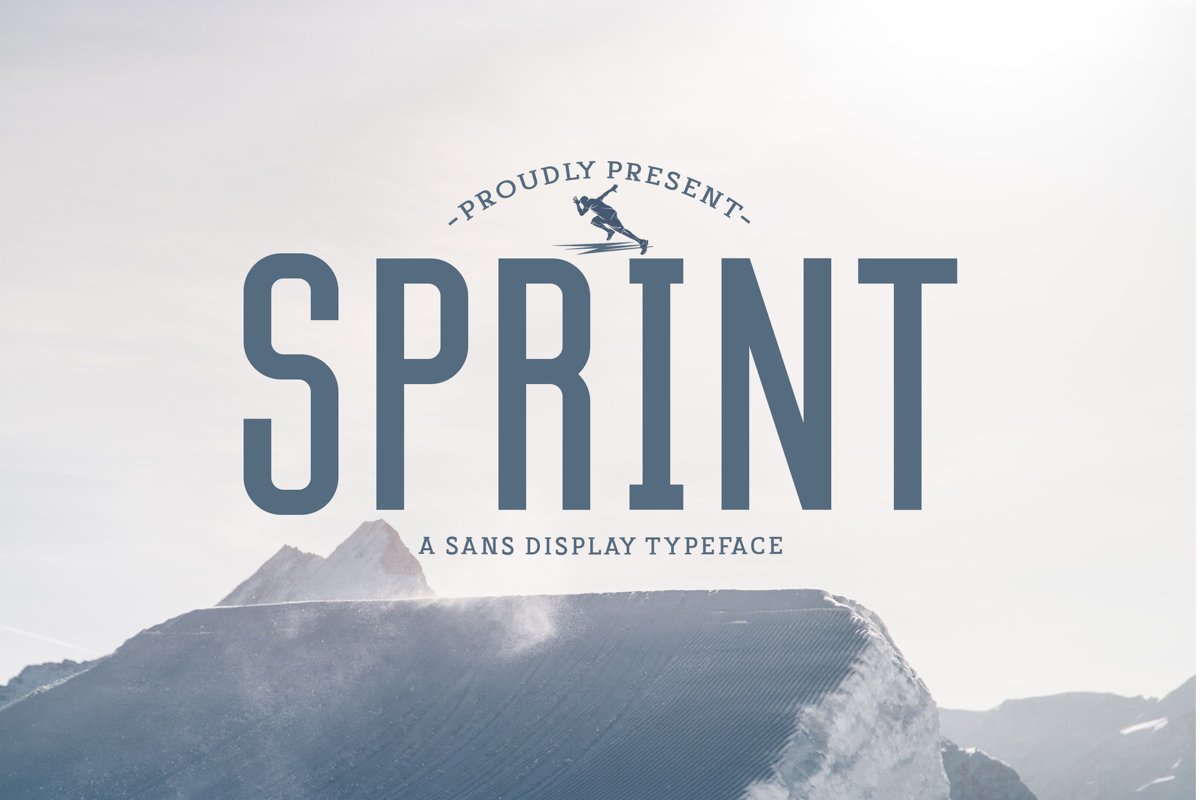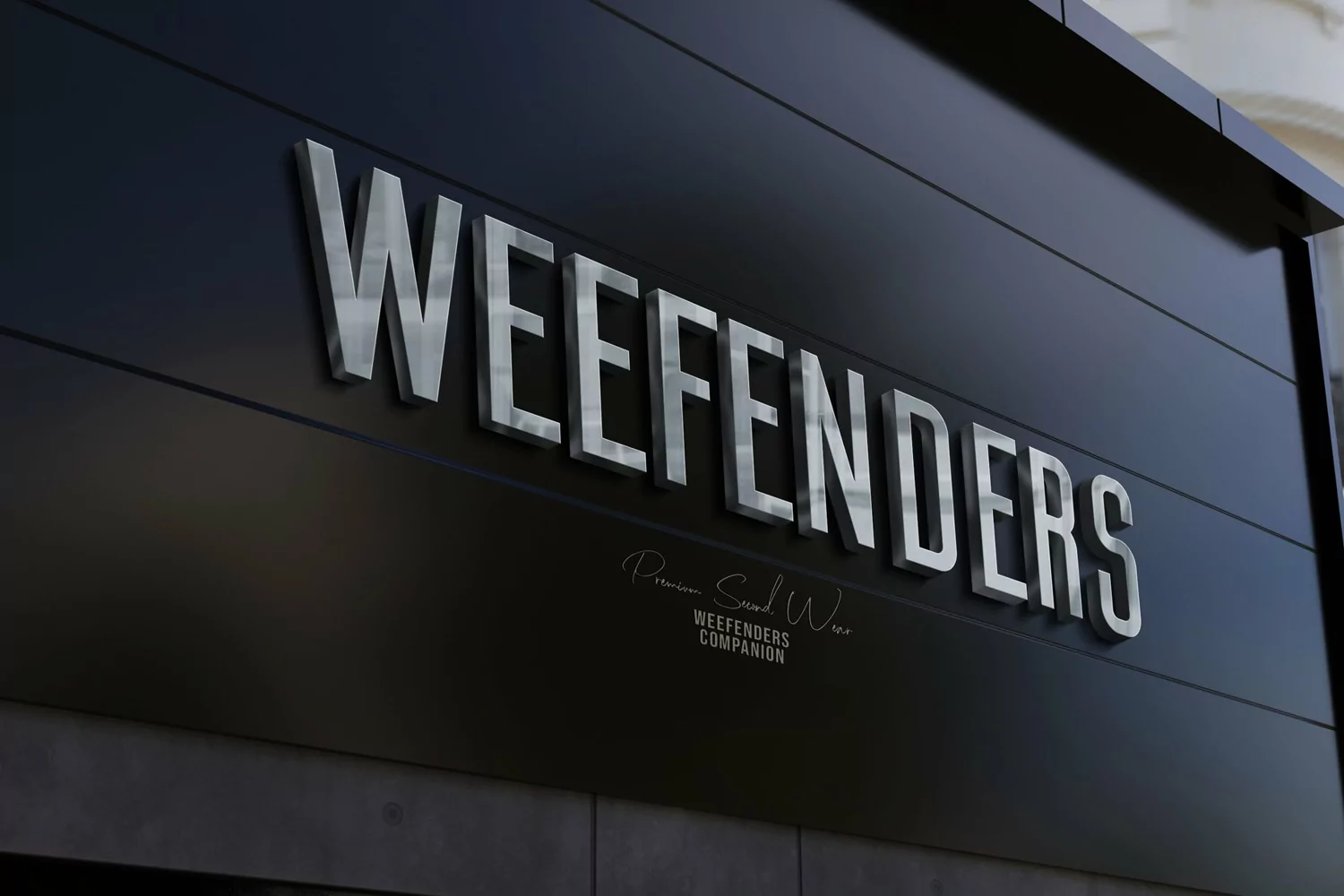
Sprint is a sans display typeface. Perfect for display, poster, quotes, film, craft needs, book cover, business card, packaging, merchandise, branding, logo, logotype, header, title, and many more.